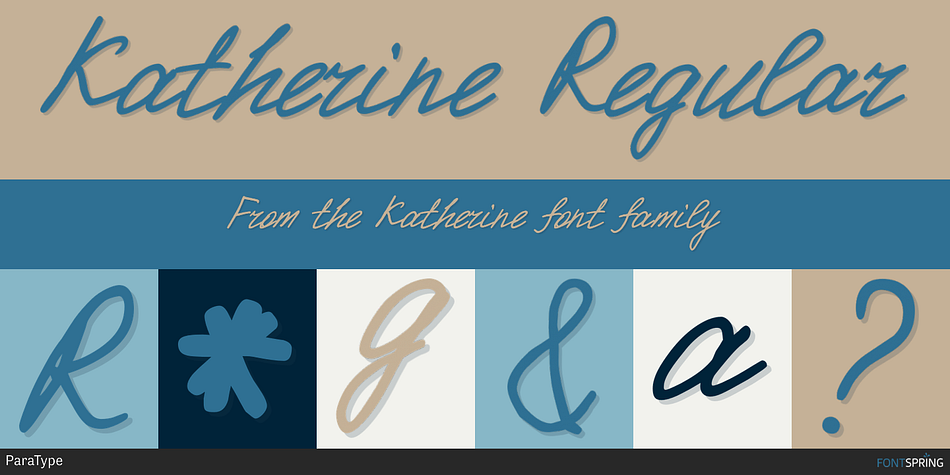
Designed by Gennady Fridman, Katherine is a script font published by ParaType.
Script font developed for ParaType in 2007 by Gennady Fridman on the base of informal handwriting. The handwriting belongs to a woman of middle class that have found her place in the life and does not pretend to get more. It produces a feeling of reliability and promptness. The font can be used for advertising of house goods and in other printed materials where it’s important to show informality and personal attitude.